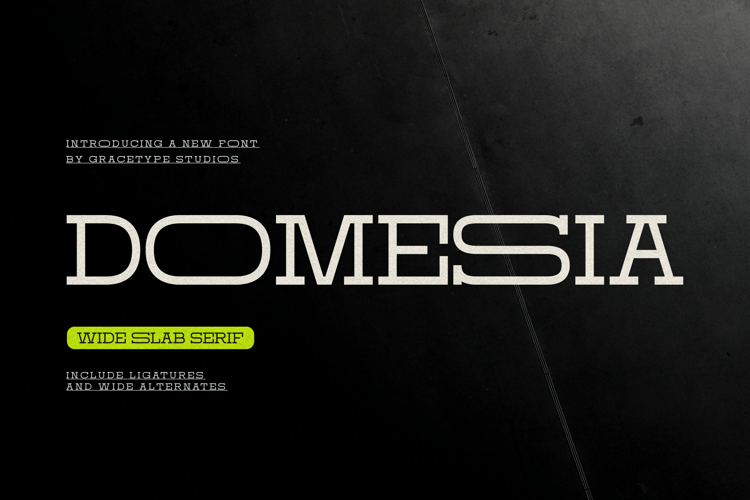
Domesia Font
Domesia | Wide Slab Serif, is suitable for any projects such as: logos, branding projects, homeware designs, product packaging, mugs, quotes, posters, shopping bags, t-shirts, book covers, name card, invitation cards, greeting cards, label, photography, watermark, special events, and all your other lovely projects that need a Slab Serif taste.